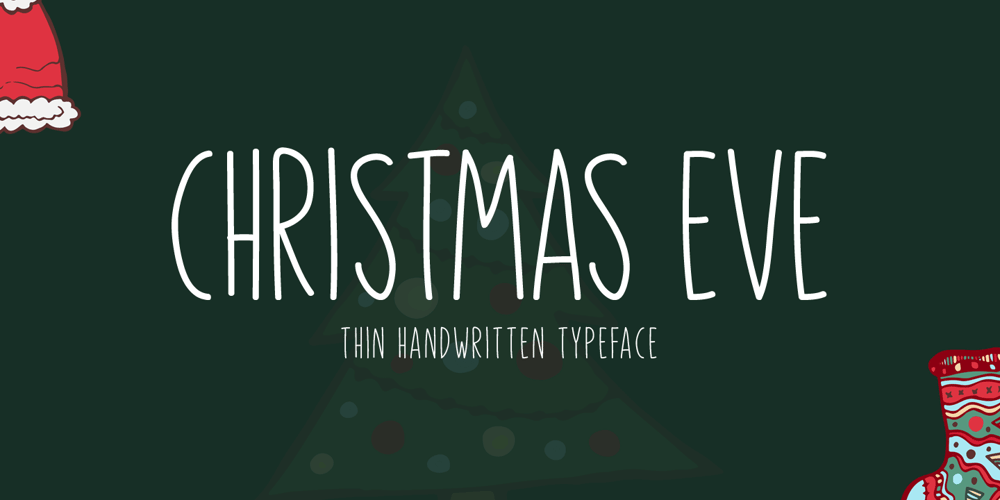
Christmas Eve
Christmas Eve font
Christmas Eve Font Family was designed by Md Shohail Bhuian and published by Seemly Fonts. Christmas Eve contains 1 styles and family package options. Christmas Eve is a brand new handwritten font. Christmas Eve is perfectly suited for stationery, logos, t-shirt, paper, print design, website header, photo frame, flyer, music cover, poster, image slider, and much more.